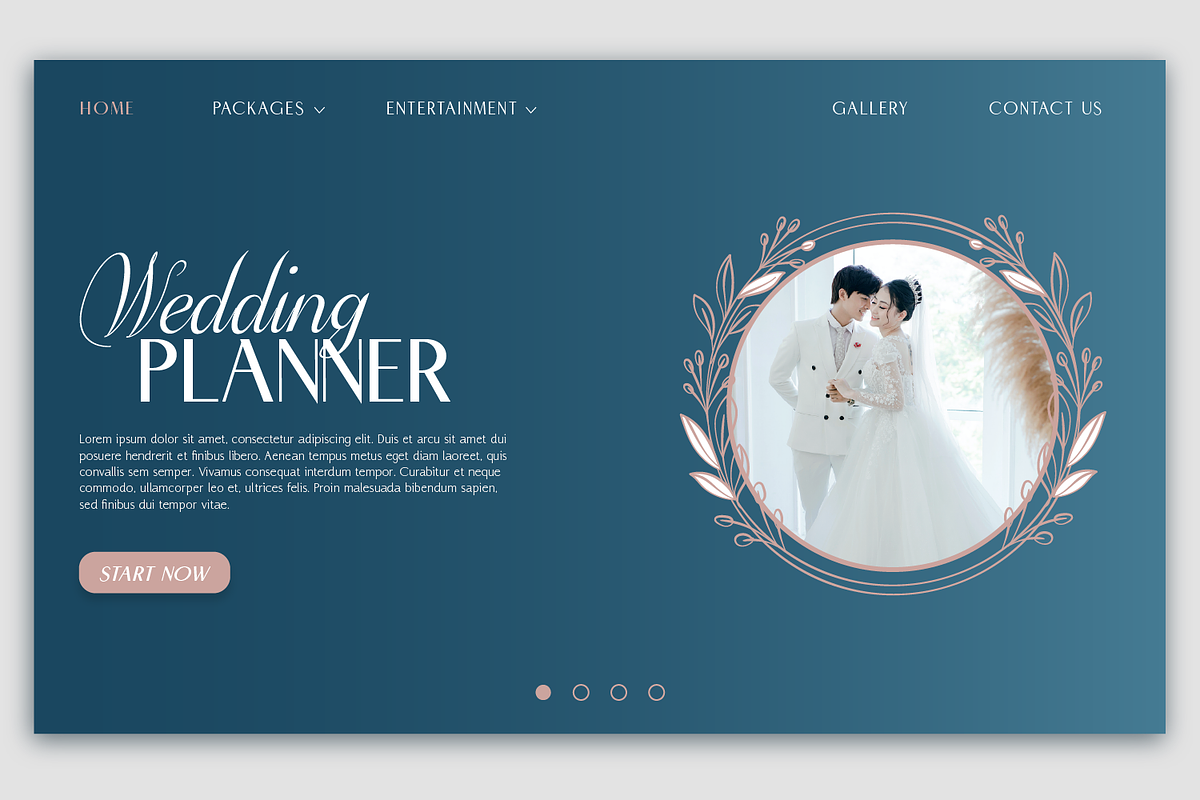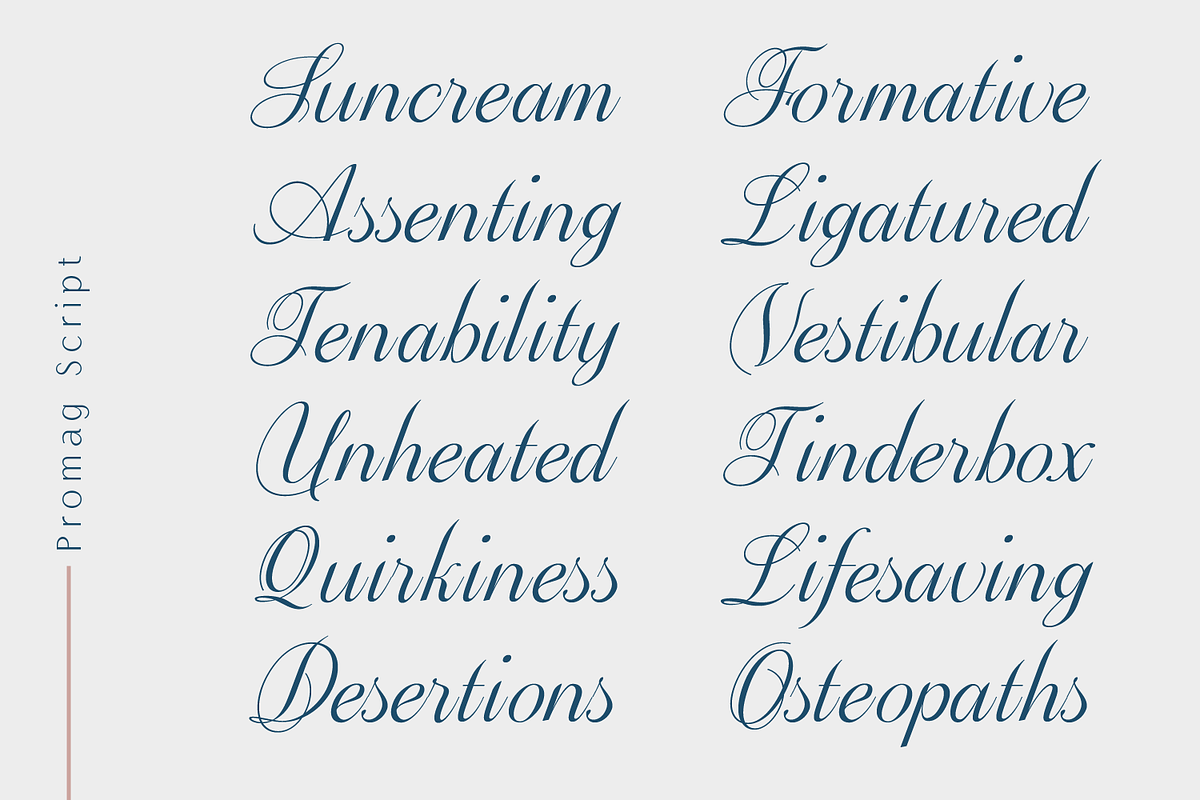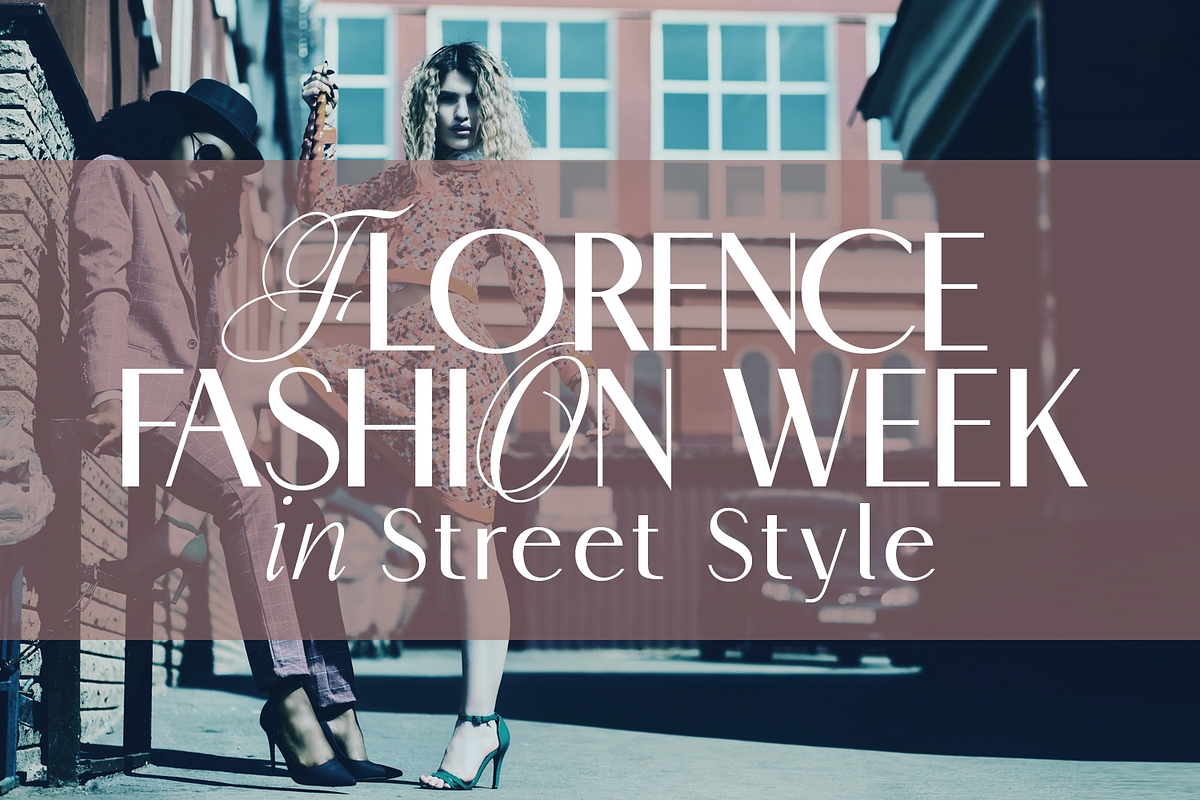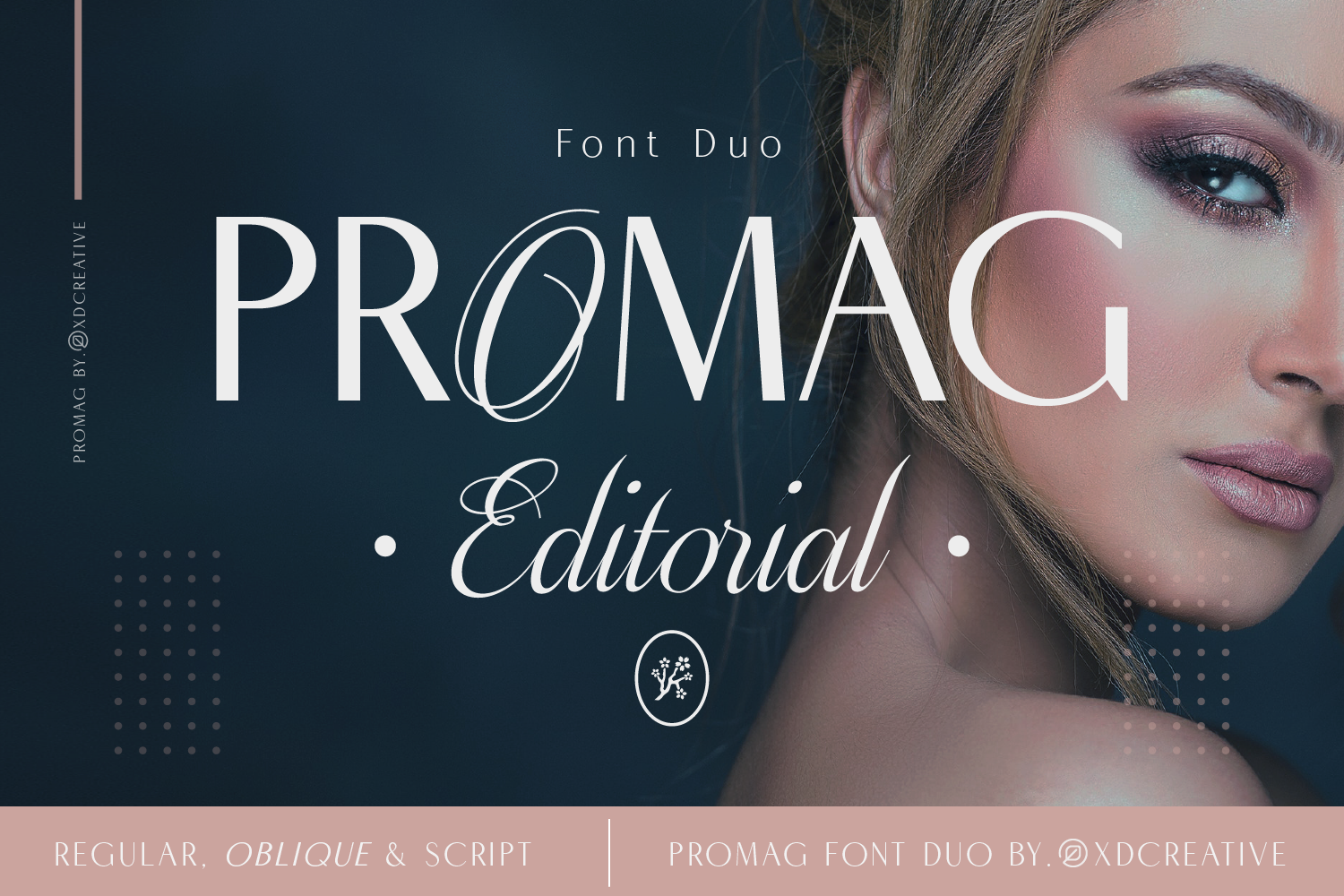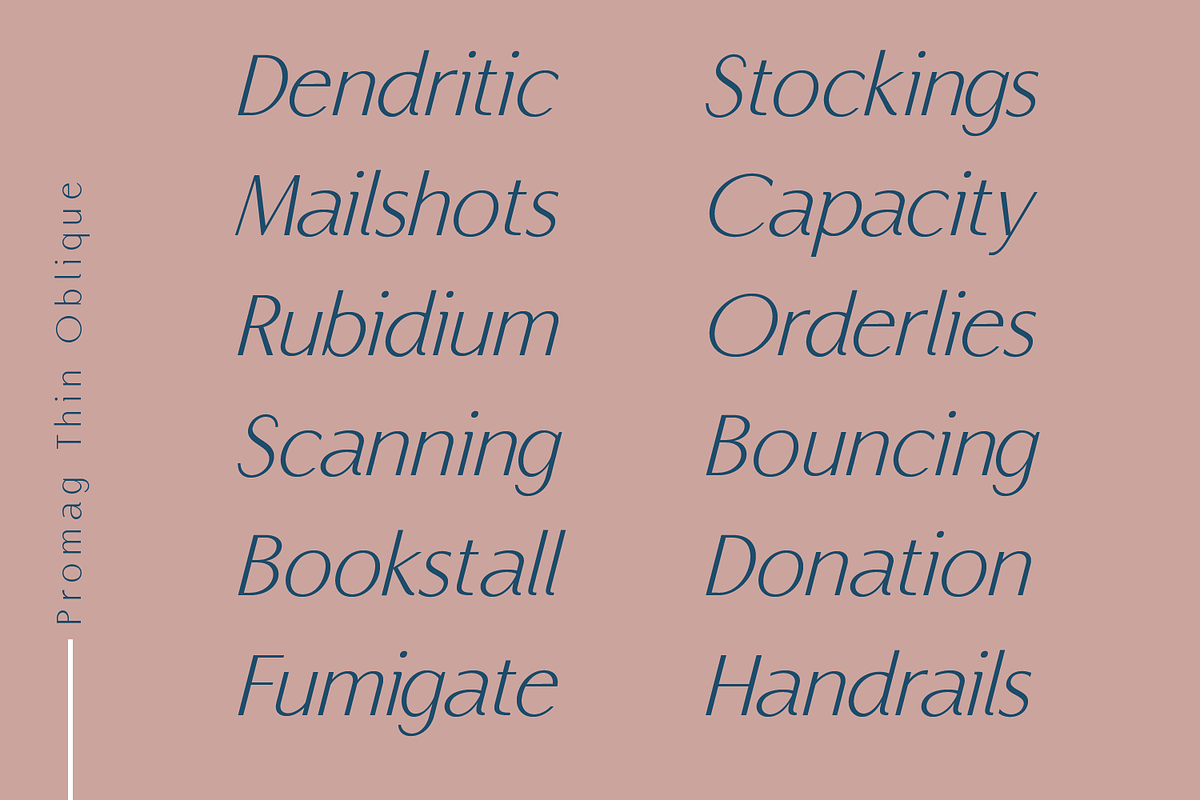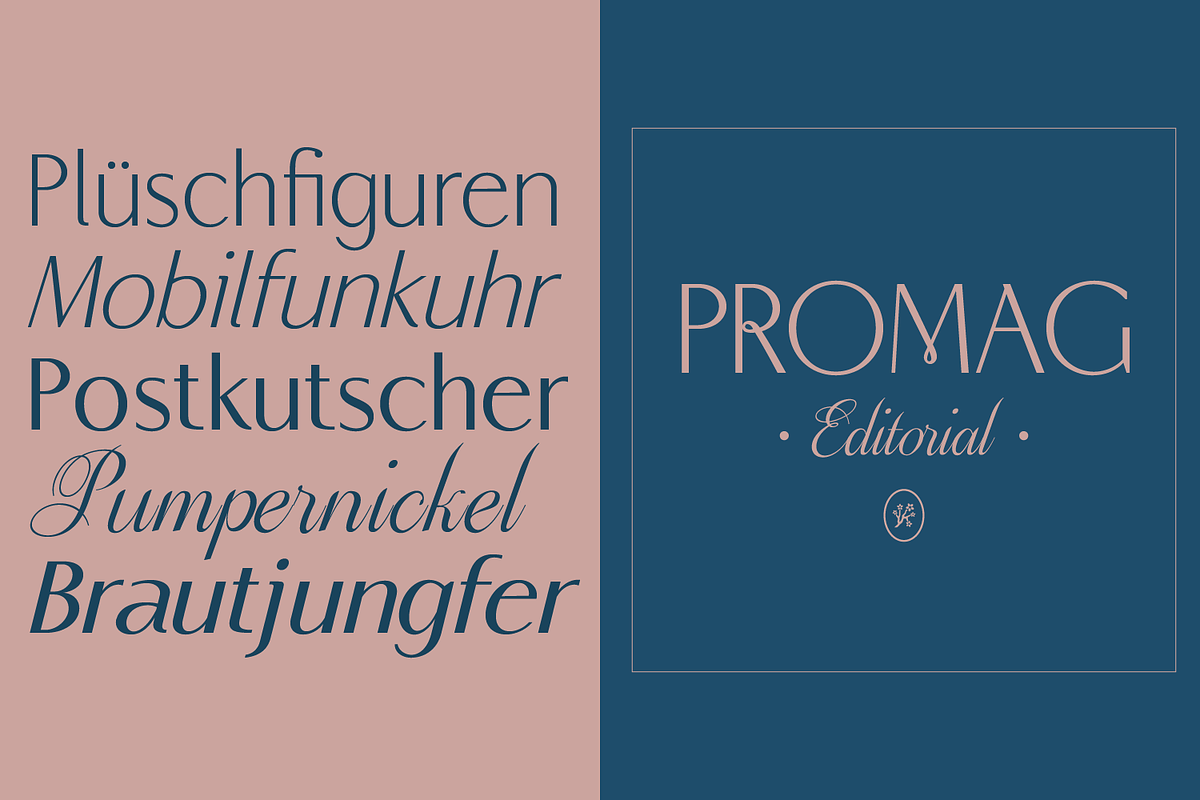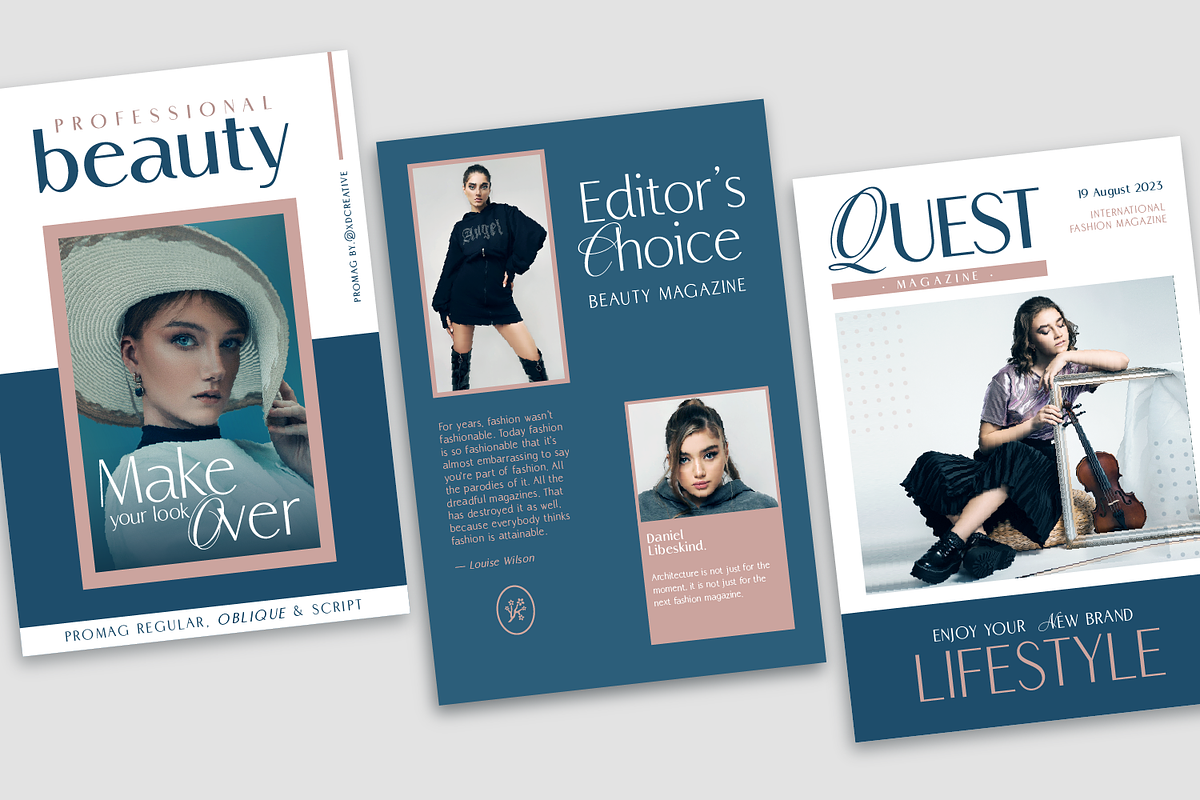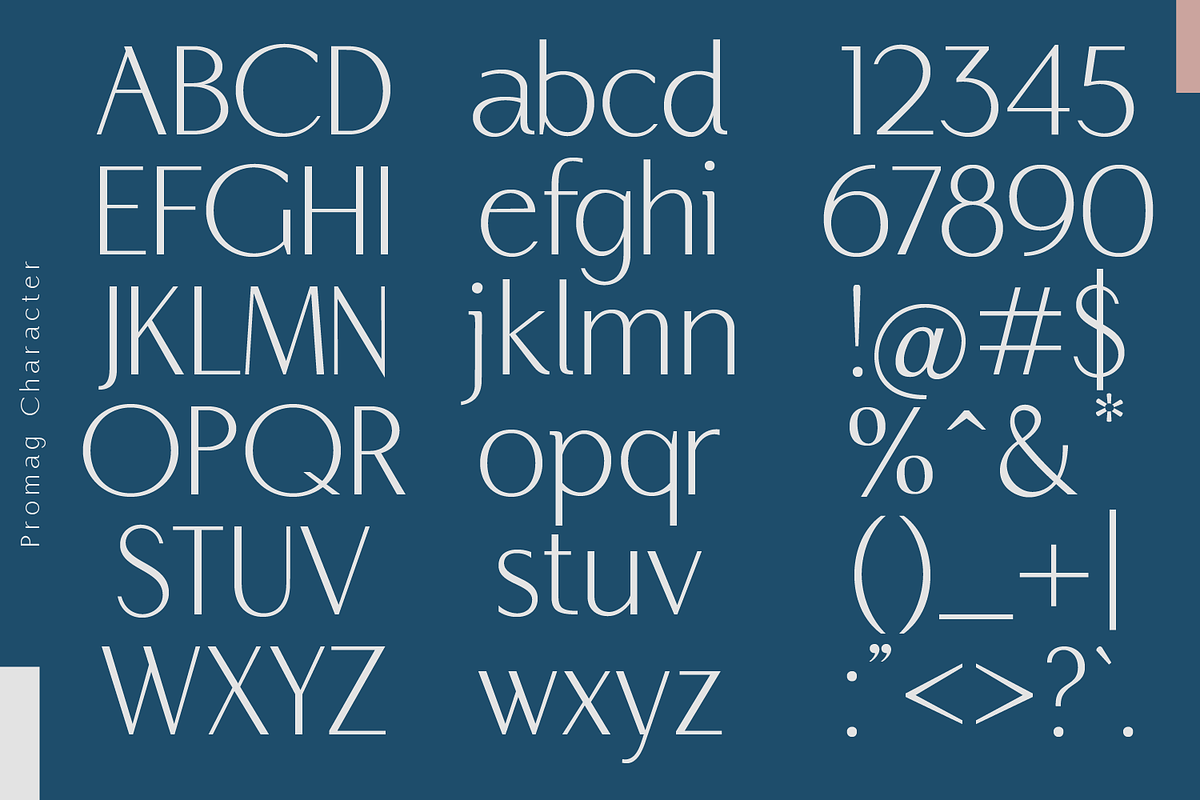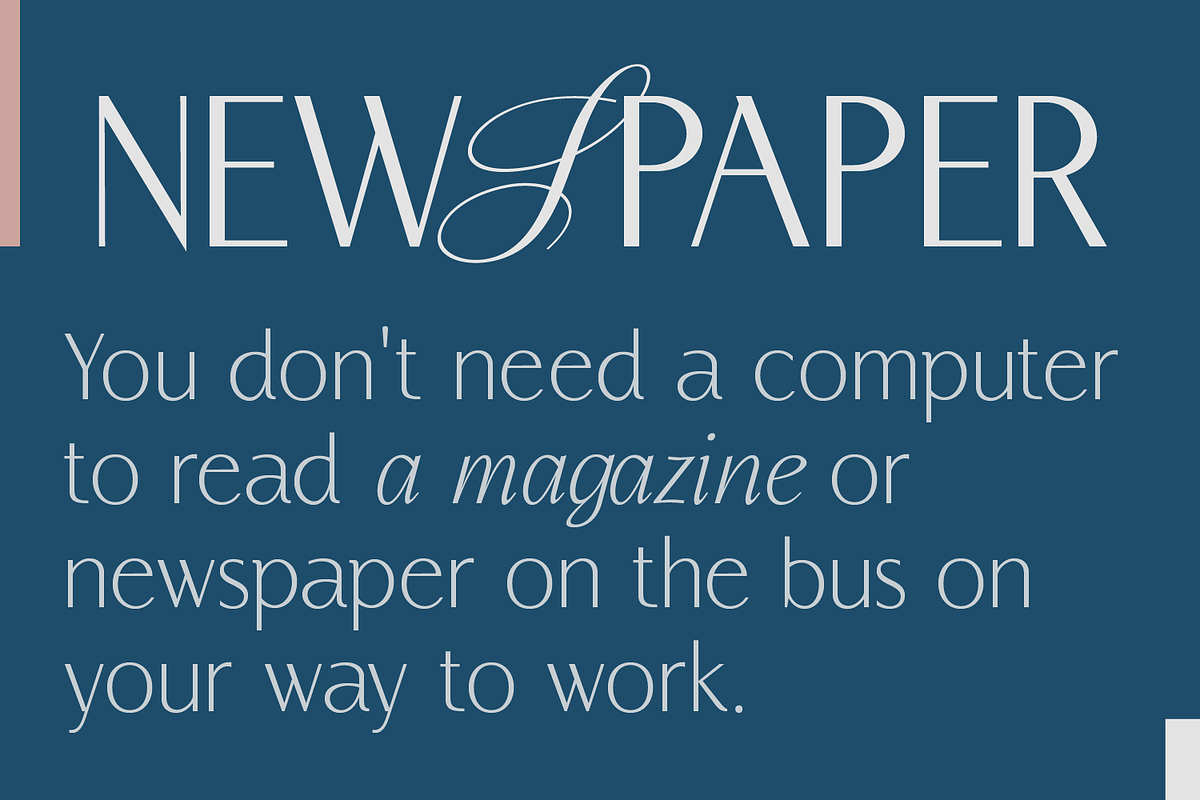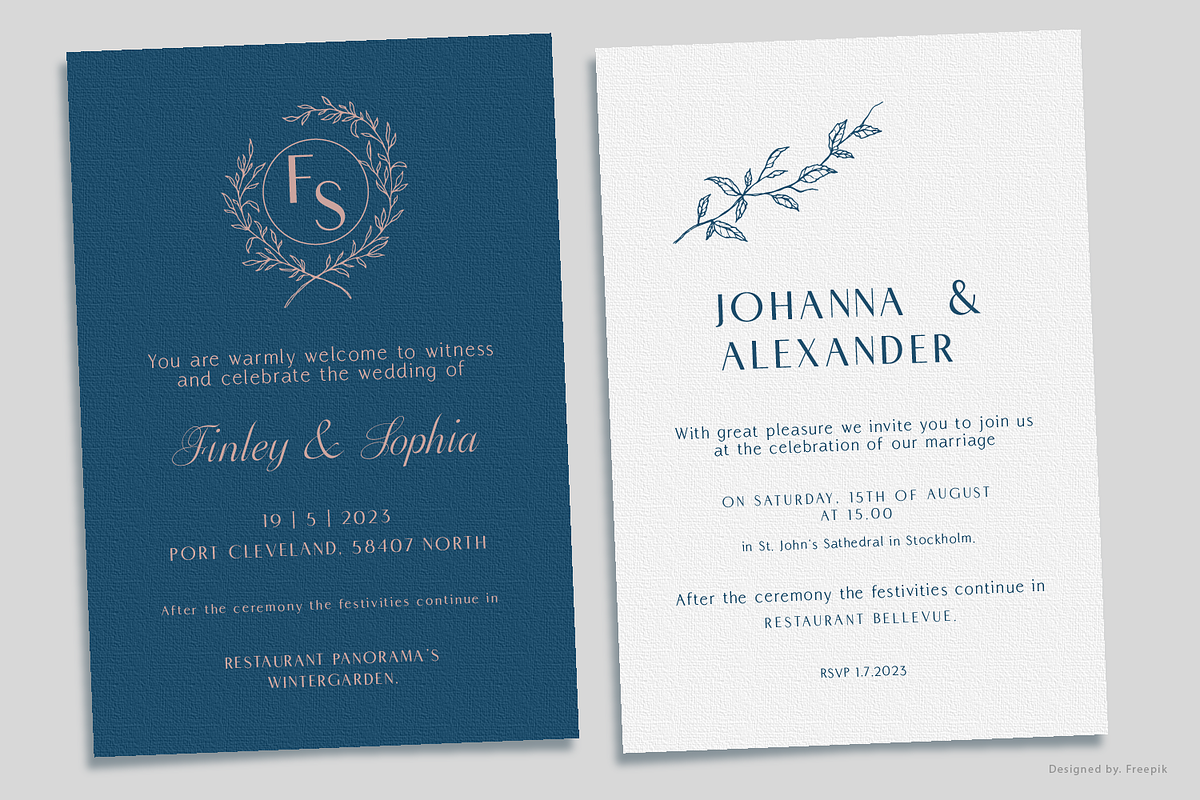
Promag Font Duo (Family)
Promag Font Duo is inspired by climora serif by Faldykudo, while maintaining a feminine and elegant impression, combined with beautiful Promag Scripts which is a perfect combination for your various design needs.
Promag Font Duo would look great for logos & branding, invitations, stationery, wedding designs, social media, advertisements, printed quotes, product packaging, labels, photography, watermarks, special events, or even magazine layouts.